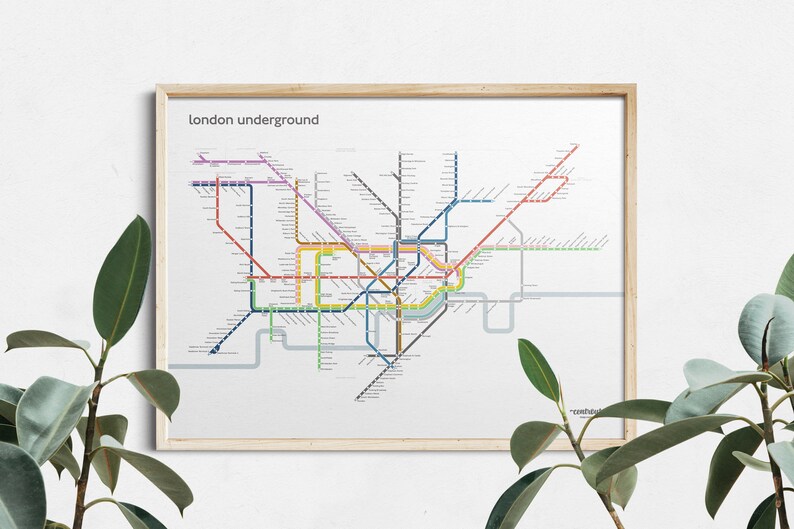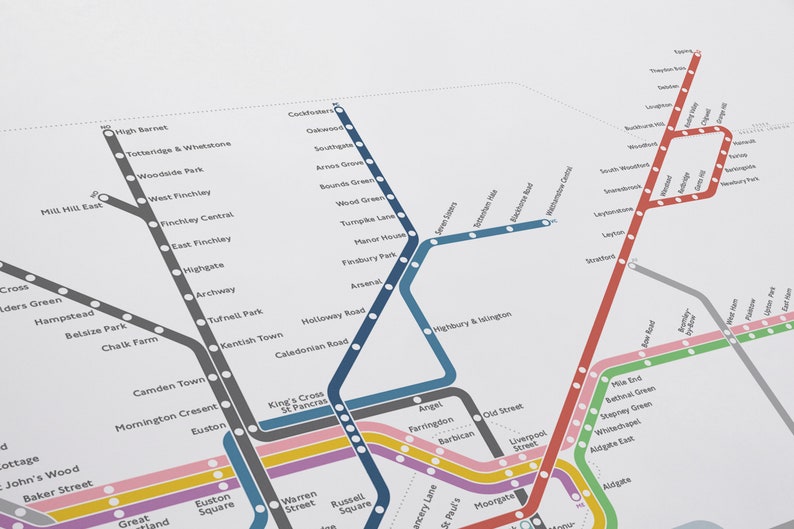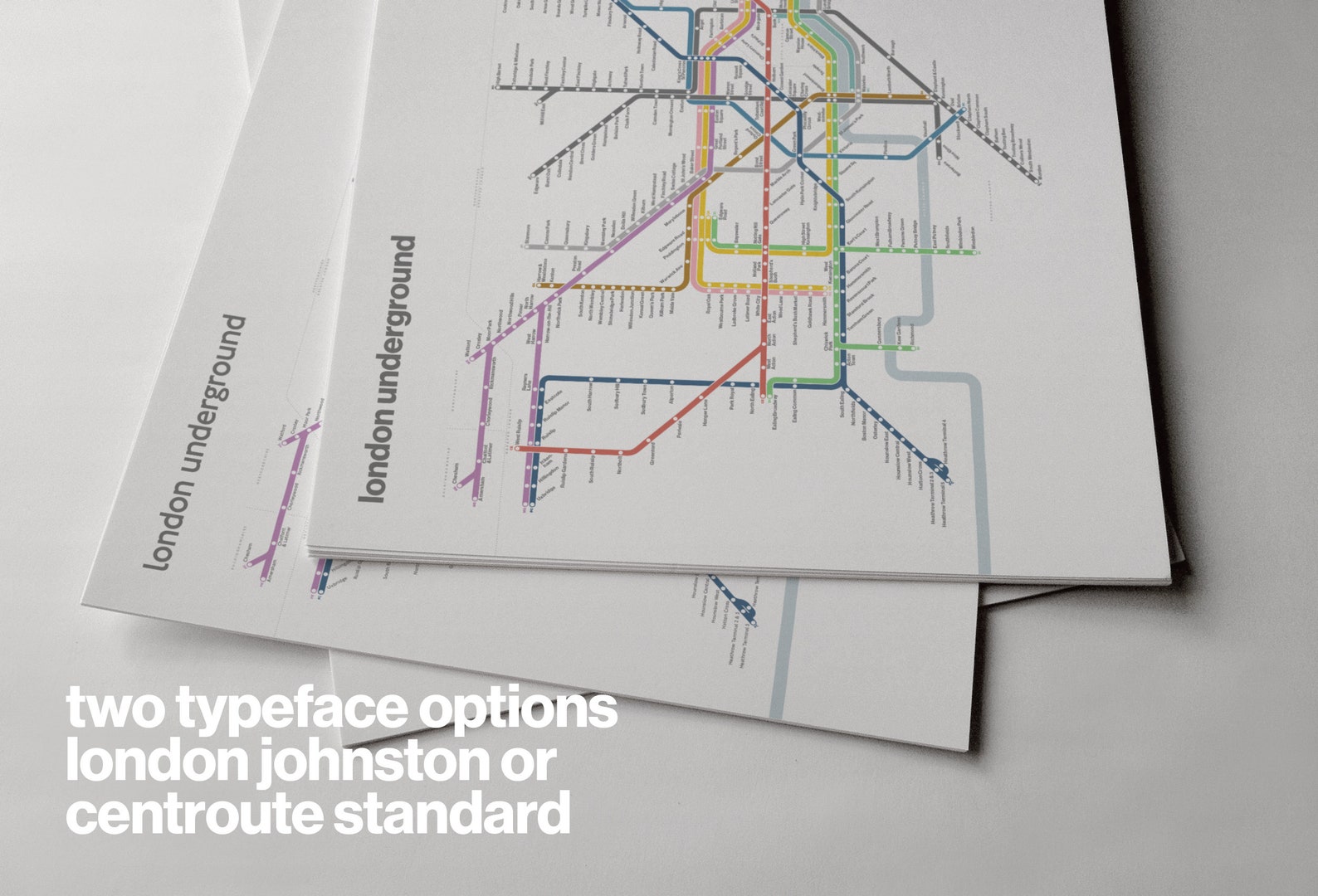
London Tube Map Font . The font used for the london underground is known as ‘johnston,’ which has become an essential part of london’s visual identity since its creation by edward johnston in 1916. Today it is used on signage, london underground. Alphabet characters based on edward johnston's london underground type designed for london transport in 1915. Edward johnston was responsible for creating the iconic johnston typeface a century ago for london underground. Since its introduction, this lettering has come to represent not just. Released in 1997 by jonathan paterson and licensed for personal and. Free download of london tube font. The johnston typeface was first introduced in 1916 and used on the london underground.
Alphabet characters based on edward johnston's london underground type designed for london transport in 1915. The font used for the london underground is known as ‘johnston,’ which has become an essential part of london’s visual identity since its creation by edward johnston in 1916. Released in 1997 by jonathan paterson and licensed for personal and. Since its introduction, this lettering has come to represent not just. The johnston typeface was first introduced in 1916 and used on the london underground. Edward johnston was responsible for creating the iconic johnston typeface a century ago for london underground. Free download of london tube font. Today it is used on signage, london underground.
London Tube Map Font The johnston typeface was first introduced in 1916 and used on the london underground. Free download of london tube font. Released in 1997 by jonathan paterson and licensed for personal and. Since its introduction, this lettering has come to represent not just. The johnston typeface was first introduced in 1916 and used on the london underground. The font used for the london underground is known as ‘johnston,’ which has become an essential part of london’s visual identity since its creation by edward johnston in 1916. Edward johnston was responsible for creating the iconic johnston typeface a century ago for london underground. Alphabet characters based on edward johnston's london underground type designed for london transport in 1915. Today it is used on signage, london underground.
London Tube map shows the real distance between stations London London Tube Map Font Released in 1997 by jonathan paterson and licensed for personal and. Alphabet characters based on edward johnston's london underground type designed for london transport in 1915. Since its introduction, this lettering has come to represent not just. Edward johnston was responsible for creating the iconic johnston typeface a century ago for london underground. The johnston typeface was first introduced in. London Tube Map Font.
The Tube Transport for London Releases Official Tube Map Featuring London Tube Map Font The johnston typeface was first introduced in 1916 and used on the london underground. Alphabet characters based on edward johnston's london underground type designed for london transport in 1915. Edward johnston was responsible for creating the iconic johnston typeface a century ago for london underground. Since its introduction, this lettering has come to represent not just. Released in 1997 by. London Tube Map Font.
The History Of The Tube Map Londonist vrogue.co London Tube Map Font Released in 1997 by jonathan paterson and licensed for personal and. Today it is used on signage, london underground. The johnston typeface was first introduced in 1916 and used on the london underground. Alphabet characters based on edward johnston's london underground type designed for london transport in 1915. Since its introduction, this lettering has come to represent not just. Free. London Tube Map Font.
The Dramatic History Of Londons Underground London Tube Map London London Tube Map Font Released in 1997 by jonathan paterson and licensed for personal and. Free download of london tube font. Since its introduction, this lettering has come to represent not just. The johnston typeface was first introduced in 1916 and used on the london underground. Today it is used on signage, london underground. Edward johnston was responsible for creating the iconic johnston typeface. London Tube Map Font.
London Tube Map and Zones 2023 Chameleon Services London Tube Map Font Free download of london tube font. Edward johnston was responsible for creating the iconic johnston typeface a century ago for london underground. Since its introduction, this lettering has come to represent not just. Alphabet characters based on edward johnston's london underground type designed for london transport in 1915. The johnston typeface was first introduced in 1916 and used on the. London Tube Map Font.
London Tube Font Download Free for Desktop & font London Tube Map Font The font used for the london underground is known as ‘johnston,’ which has become an essential part of london’s visual identity since its creation by edward johnston in 1916. The johnston typeface was first introduced in 1916 and used on the london underground. Since its introduction, this lettering has come to represent not just. Today it is used on signage,. London Tube Map Font.
London Underground Map / Font Options / Tube Map / Minimal Etsy London Tube Map Font Released in 1997 by jonathan paterson and licensed for personal and. The font used for the london underground is known as ‘johnston,’ which has become an essential part of london’s visual identity since its creation by edward johnston in 1916. Edward johnston was responsible for creating the iconic johnston typeface a century ago for london underground. Today it is used. London Tube Map Font.
Map of London Tube Free Printable Maps London Tube Map Font Edward johnston was responsible for creating the iconic johnston typeface a century ago for london underground. The font used for the london underground is known as ‘johnston,’ which has become an essential part of london’s visual identity since its creation by edward johnston in 1916. Released in 1997 by jonathan paterson and licensed for personal and. Since its introduction, this. London Tube Map Font.